What Are Script Fonts and How To Apply to Your Design
What Are Script Fonts
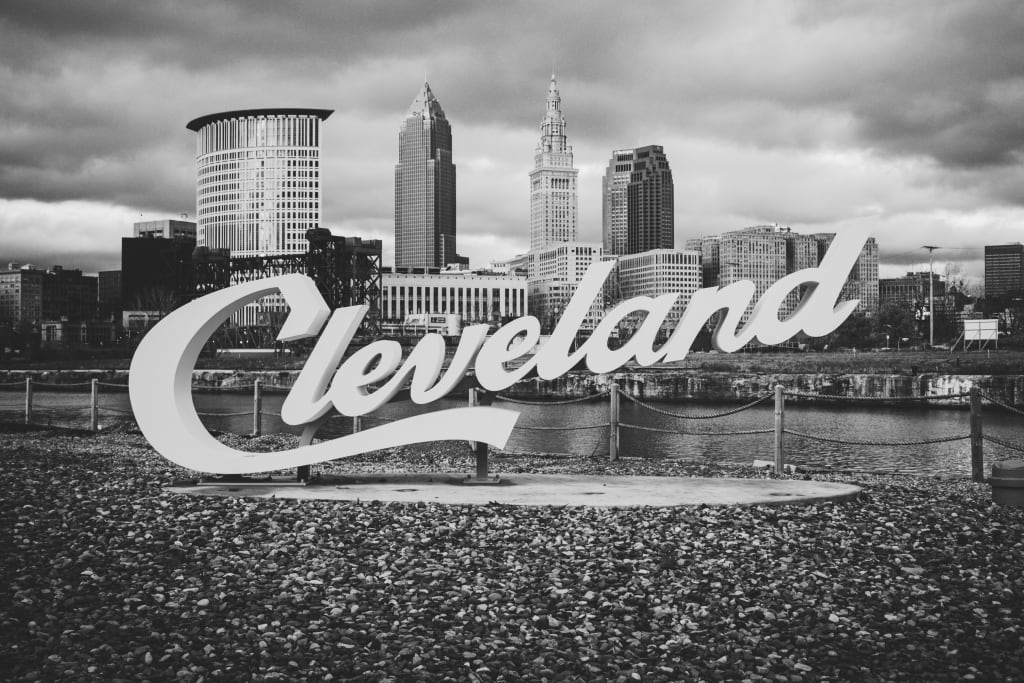
Each type of font is designed for different uses. For example, dripping fonts are suitable for use in horror film posters or Halloween invitations. But what about script fonts? What are script fonts? What kind of applications are these fonts suitable for? No need to worry; this article will help you out.
Here, we will talk about script fonts, starting from what is the script font to what are script fonts used for. Excited to get your hands on this valuable information? Then, let’s get started!
What Are Script Fonts?
In general, script fonts are a type of font that mimics cursive handwriting. It is a font that possesses a touch of calligraphy and a handwritten font-like appearance. Most commonly, This font are divided into two types: formal and casual.
What’s the difference between the two types of fonts? Well, formal script fonts are a fancy type of script font that is identical to excessive curls and elongated embellishments at each edge. Whereas casual script font is a type of script font that is more fluid and less structured, suitable for casual design applications.
What Are Script Fonts Used For?
In most cases, all types of font scripts, both formal and casual, are widely used for a wide variety of design projects. These types of fonts can be used in formal and elegant branding schemes, autograph logos, wedding invitations, social media graphics, and anything else that needs a touch of elegance and originality.
Using script fonts can be a wonderful way to uplift the sense of sophistication and flair on any design project. Script fonts can also add a personalized flair and make your designs simply stand out.
Better yet, script fonts are suitable to layer with other fonts due to their versatility and how perfectly they complement and differentiate other fonts.
How To Use Script Fonts Properly in Design
Script fonts can add a unique and elegant touch to any design. These fonts can be used in titles or as body text for invitations, branding, and beyond. There are many rules of design when it comes to using script fonts in your designs to make them stunning and fitting.
If you want to familiarize yourself with script fonts and start using them in your designs, follow some tips and guidelines below.
1. Must be Readable
The essence of your design is to be readable. Therefore, the first thing you should do when using script fonts in your design is to make sure it’s readable. You can give enough space between letters and avoid using over-complicated script fonts with various indentations at each end.
2. Only Use One Script Font
When you are learning to apply script fonts, you should never use a script font more than once. Why? Because with so many script fonts in one design, it will make your design harder to read.
3. Avoid Script Fonts with Large Letters
In short, a script font is a font that is designed to be used as lowercase letters. Large letters can’t give the same effect as handwriting or calligraphy. Besides, using script fonts with all uppercase letters will also affect readability.
4. Pair With Sans-Serif Fonts
Script fonts work well when paired with most sans-serif fonts, especially if you pair a light script font with a bold sans-serif font. As a result, it creates an eye-catching contrast between both fonts.
Get Some of the 5 Best Script Fonts
After you have known the answers to the questions of what are script fonts and what are script fonts used for, now it’s time for you to explore the 5 best script fonts. Check them out!
1. Halimun Script Style
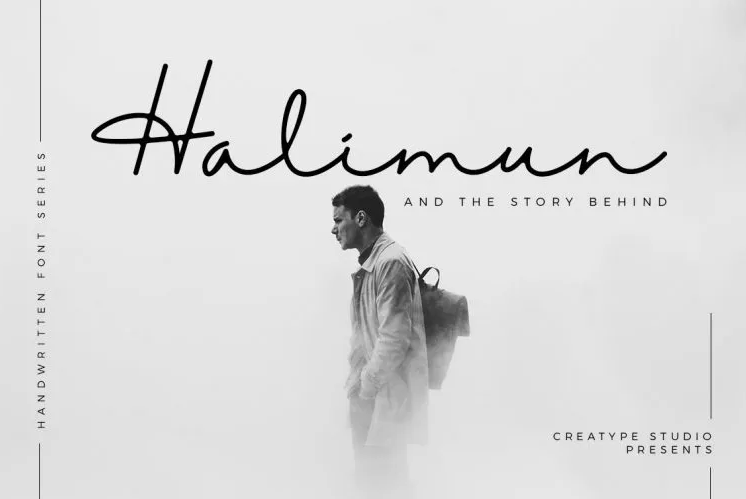
Halimun Script Style is a modern and fresh new script with handwriting and script style that makes this font elegant, natural, stylish, and flawless. Moreover, it is perfect for any project that needs a sense of handwriting.
2. Gistesy Signature Collection
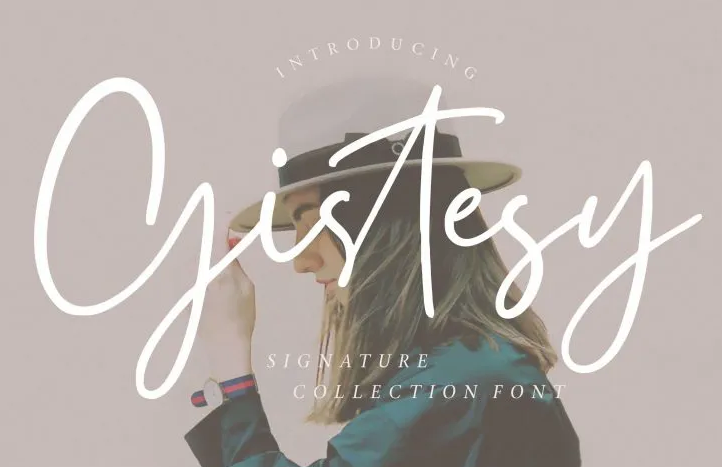
Gistesy Signature Collection is a signature collection font featuring natural movement that brings an elegant, classy, and chic vibe to your newest project.
3. Peachy Handwritten Script
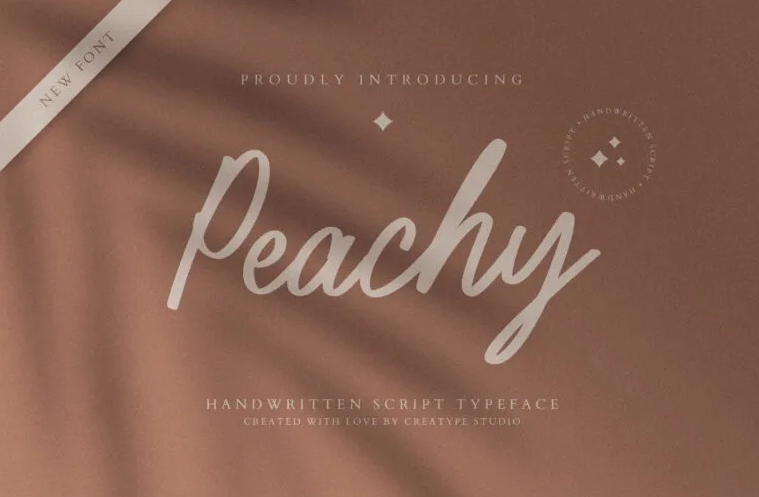
Peachy is a handwritten script typeface specifically created by the hands of experts, giving this font a wonderful and natural look. This font can be used for projects using natural, beautiful, and charming handwriting nuances.
4. Simple Thread Script
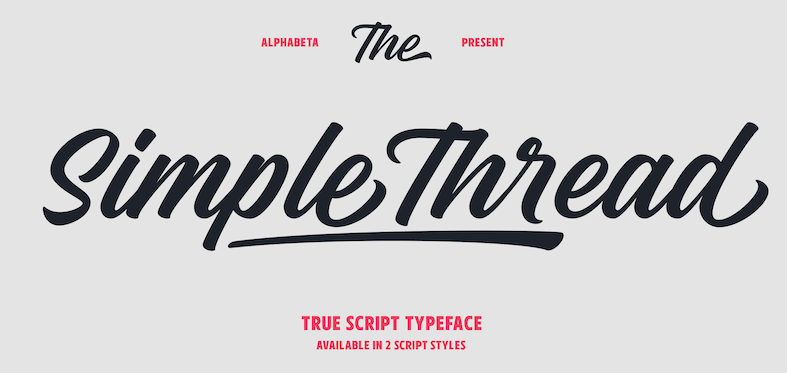
Simple Thread Script is a calligraphy script that comes with a thick and luxurious font style. It is a font that is suitable for posters, advertisements, and more.
5. August July Script
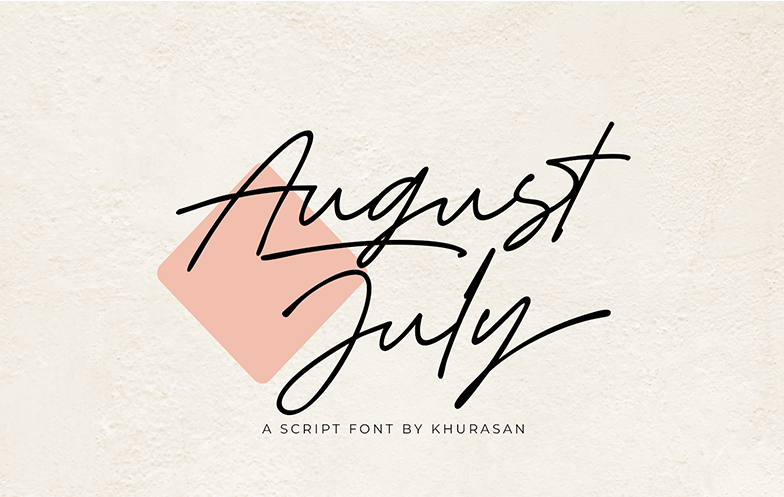
August July Script is a type of handwritten script that has a minimalist yet fancy-looking font design. It features some curves on each end to showcase its luxury.
Let’s Start Your Design Journey With Script Fonts!